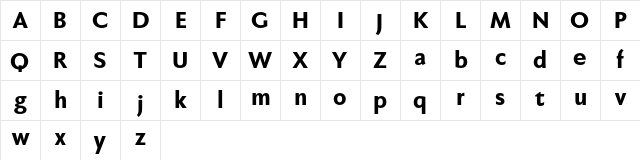
Faber Sans Pro reduced 85 Schwer
Style: 85 Schwer
Foundry: Ingo Zimmermann ingoFont Augsburg
Designer: Ingo Zimmermann
Design Context for Faber Sans Pro reduced
Faber Sans Pro reduced is a composed and adaptable typeface that performs quietly and consistently across a wide range of design contexts.